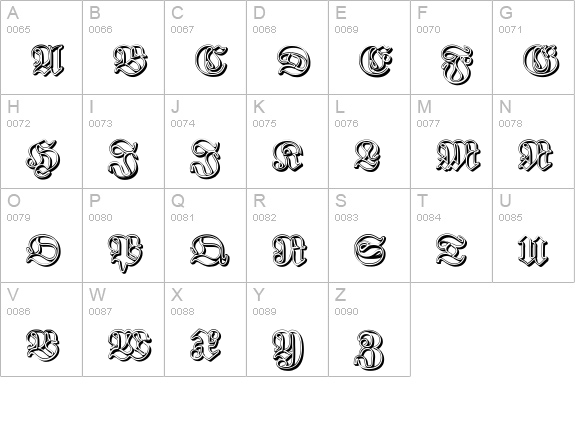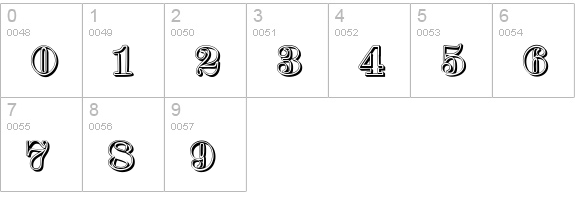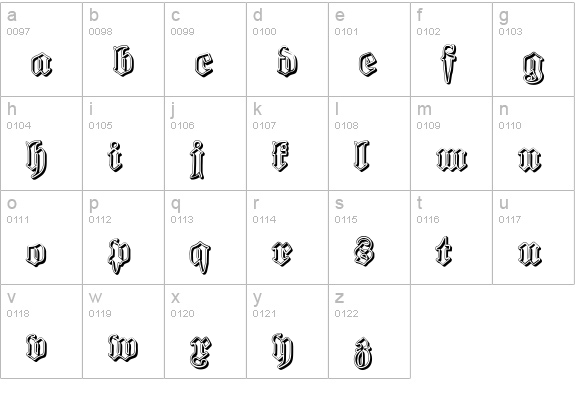
Proclamate Ribbon Heavy Font Details
Proclamate Ribbon Heavy is a heavy, high-impact variant in the Proclamate typeface family \xE2\x80\x94 well suited to high-impact headlines, posters, and display advertising.
Proclamate Ribbon Heavy is a striking and bold display font that exudes a sense of elegance and sophistication. Its distinctive ribbon-like design gives it a unique and modern look, making it perfect for eye-catching headlines, posters, and branding projects. The thick strokes and sharp angles of this font command attention and convey a sense of strength and authority. What sets Proclamate Ribbon Heavy apart is that it is available for free download at FontsMarket.com. This means that you can easily add this impressive font to your design toolbox without any cost, making it a valuable resource for designers, creatives, and enthusiasts alike. Don't miss out on the opportunity to elevate your projects with the impactful and stylish Proclamate Ribbon Heavy font.